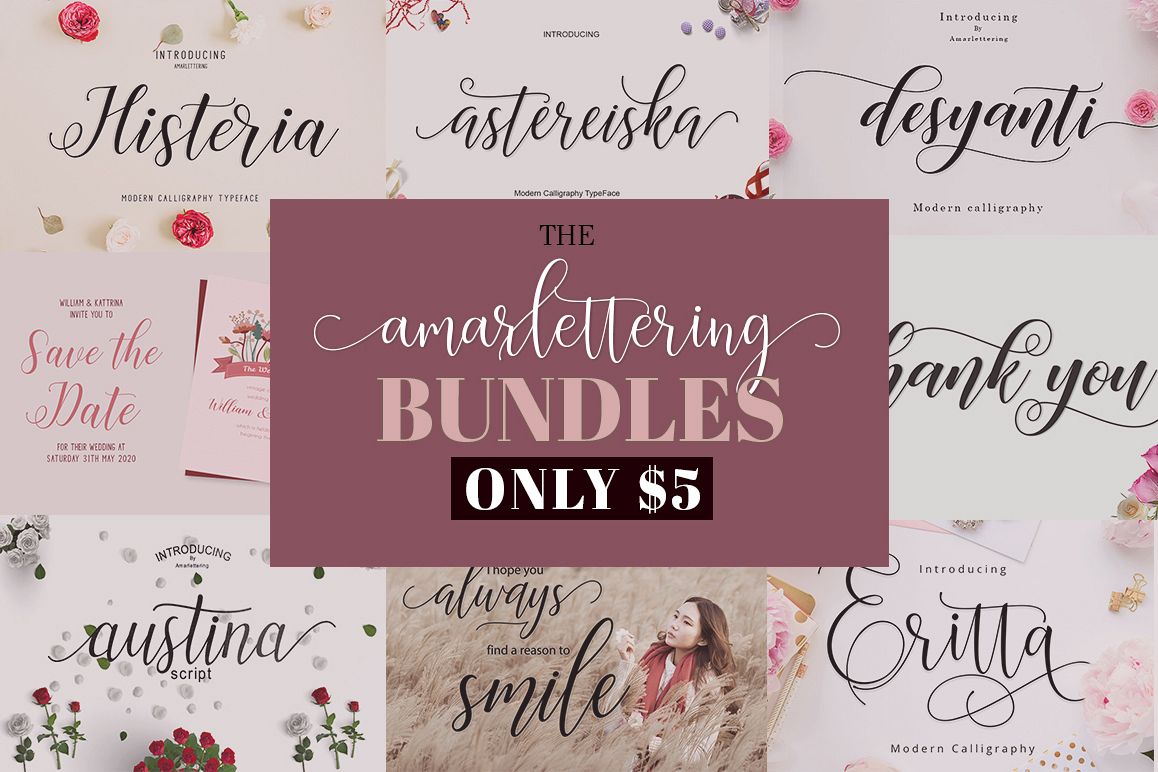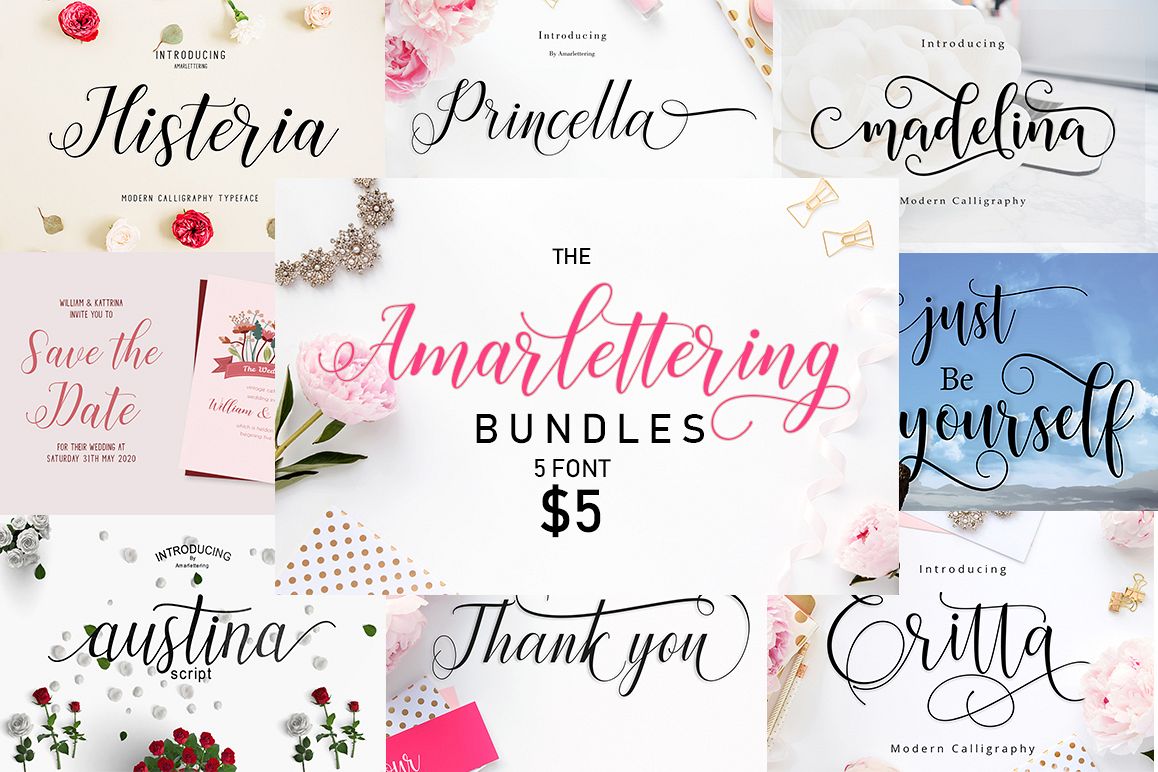
Austina-Regular
ErittaScript-Regular
HisteriaScript-Regular
Desyanti Script
Astereiska Script
The Amarlettering Calligraphy Collection is packed with 5 elegant script font families for your creative typography projects. Includes many additional alternate characters, and best part is they’re all PUA encoded, which means they’re 100% accessible, no fancy software required!